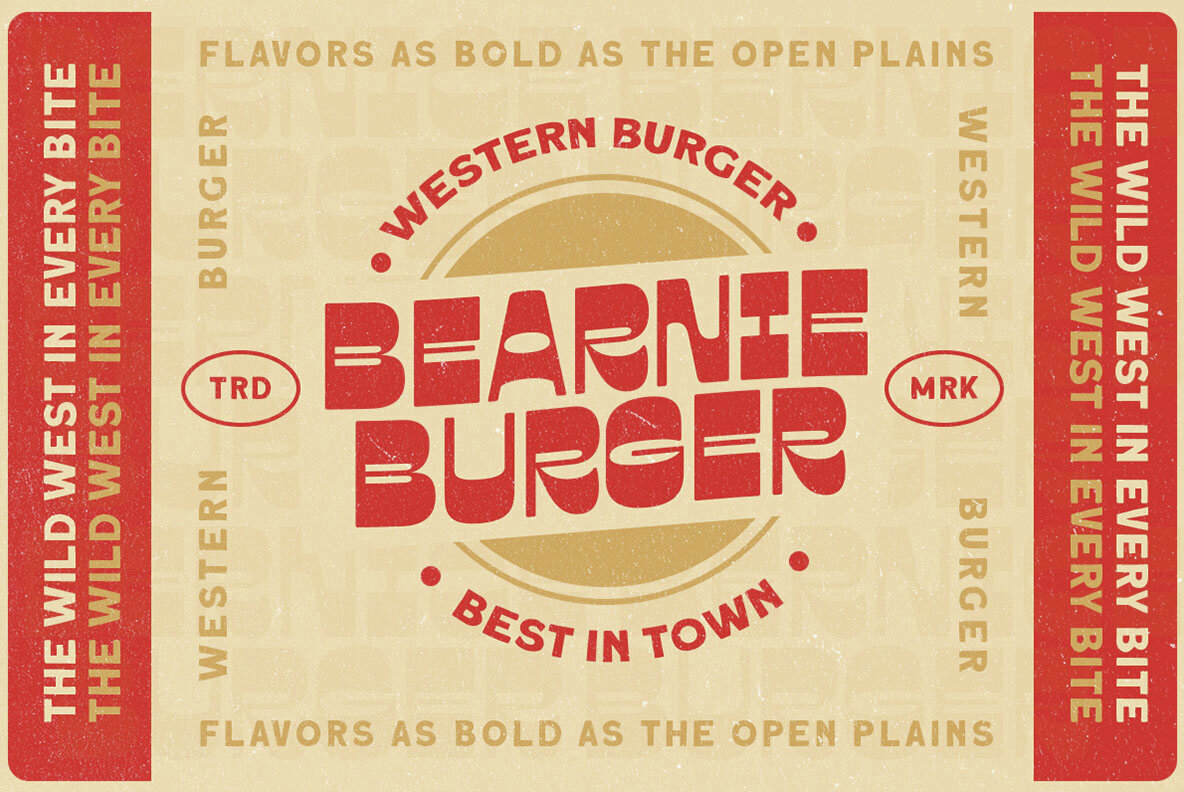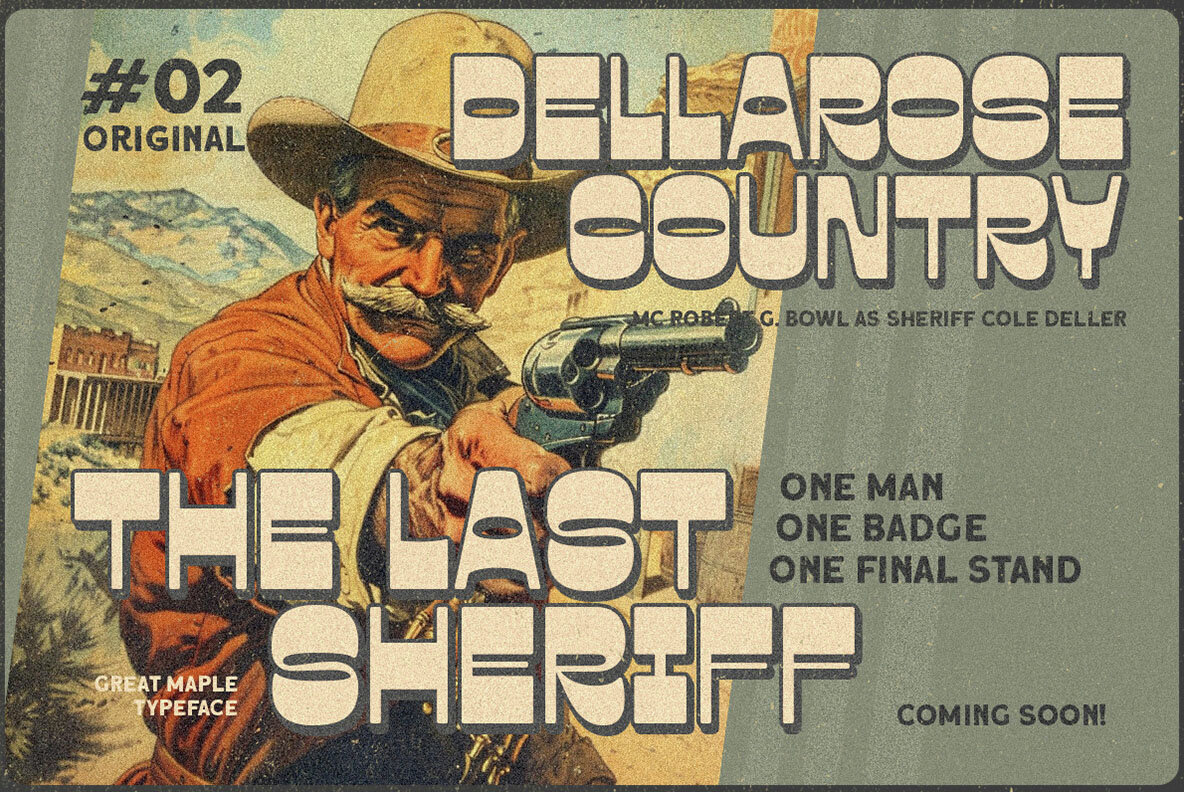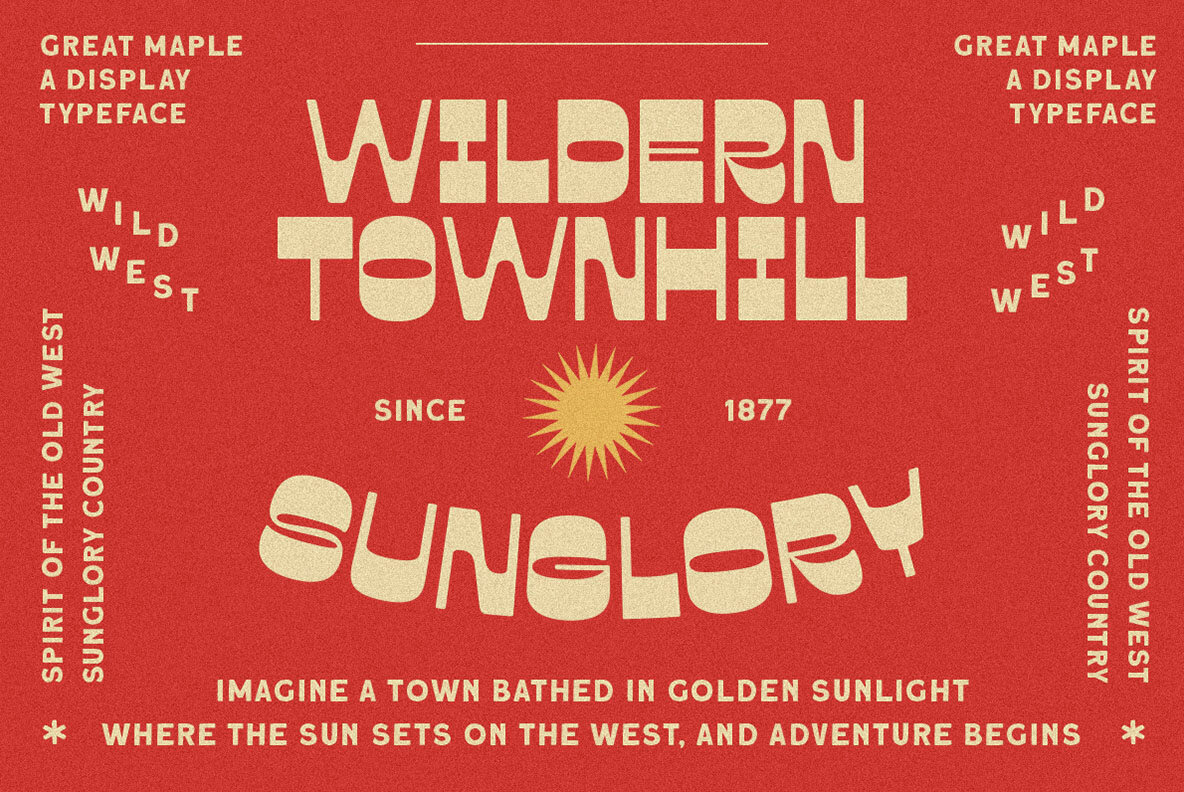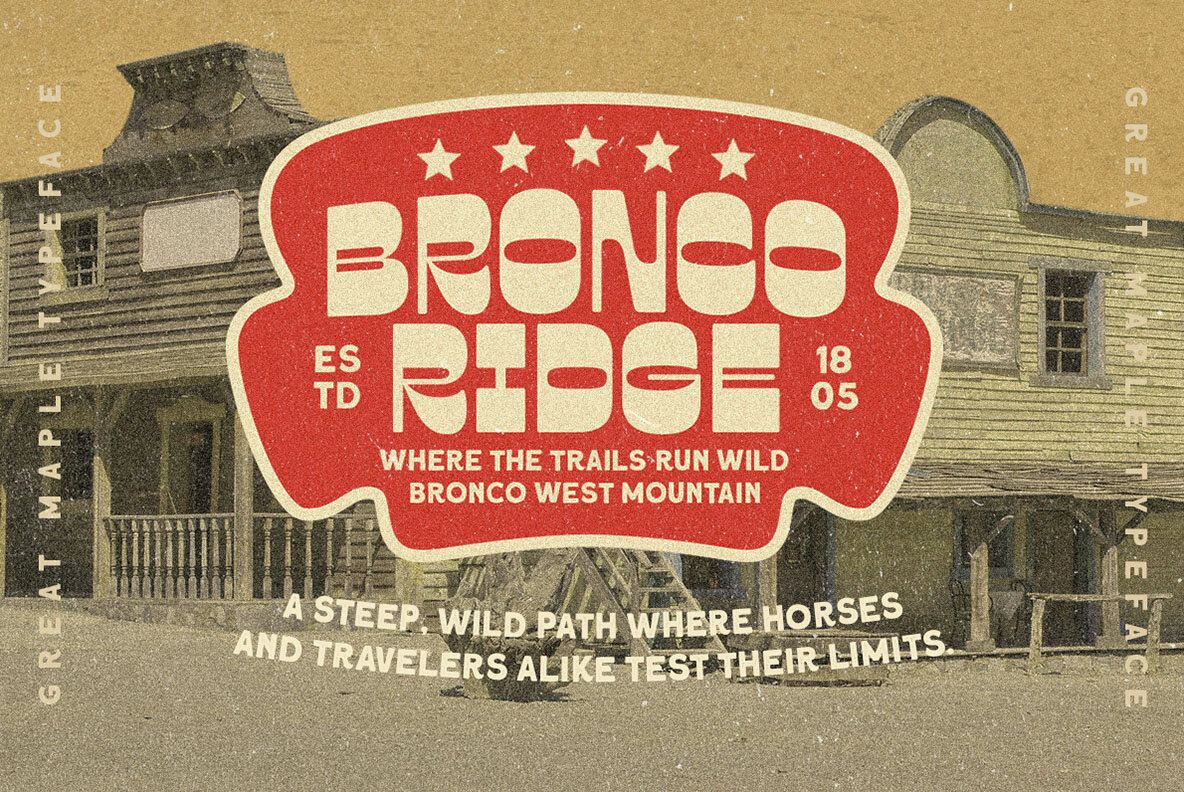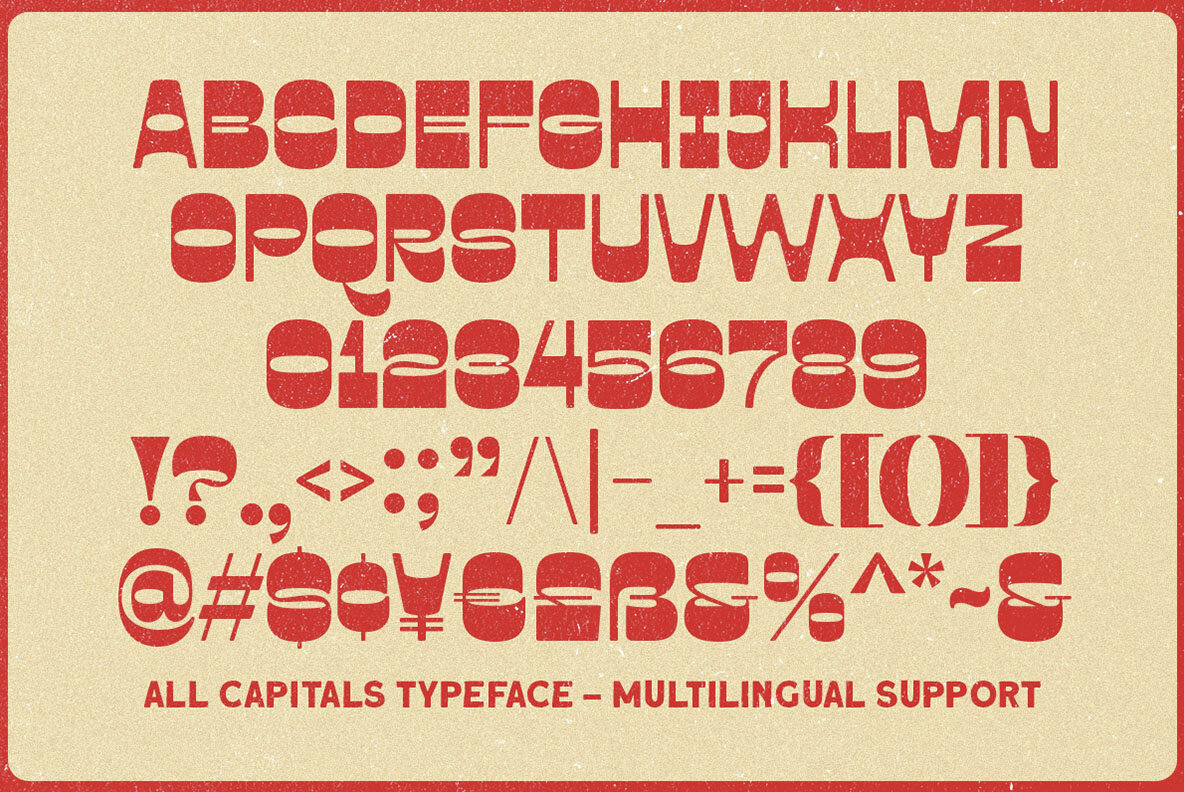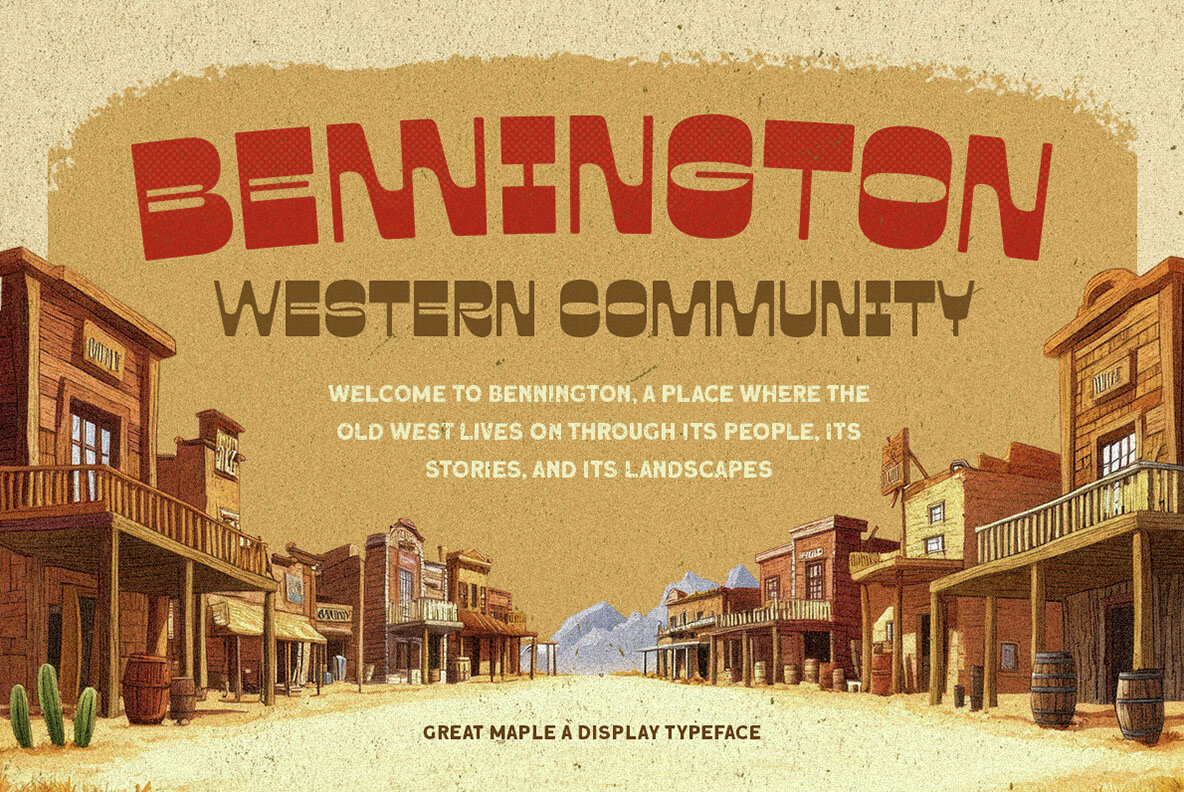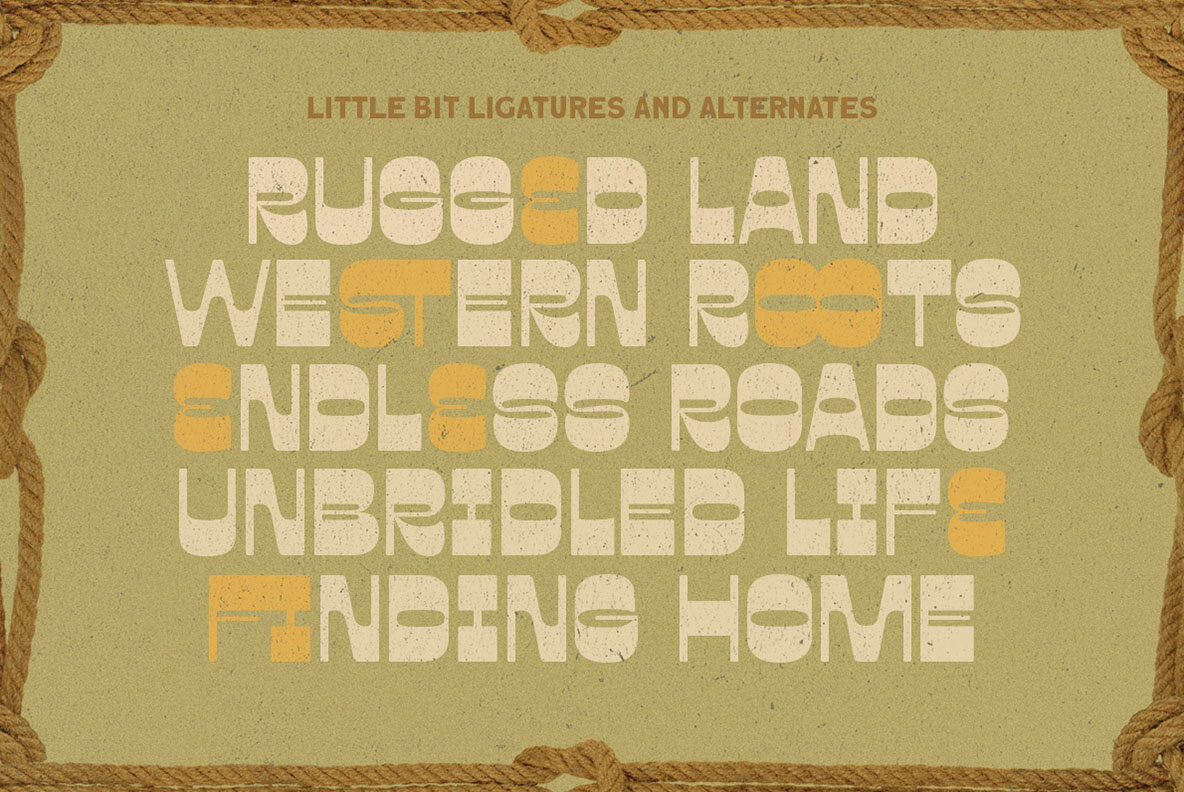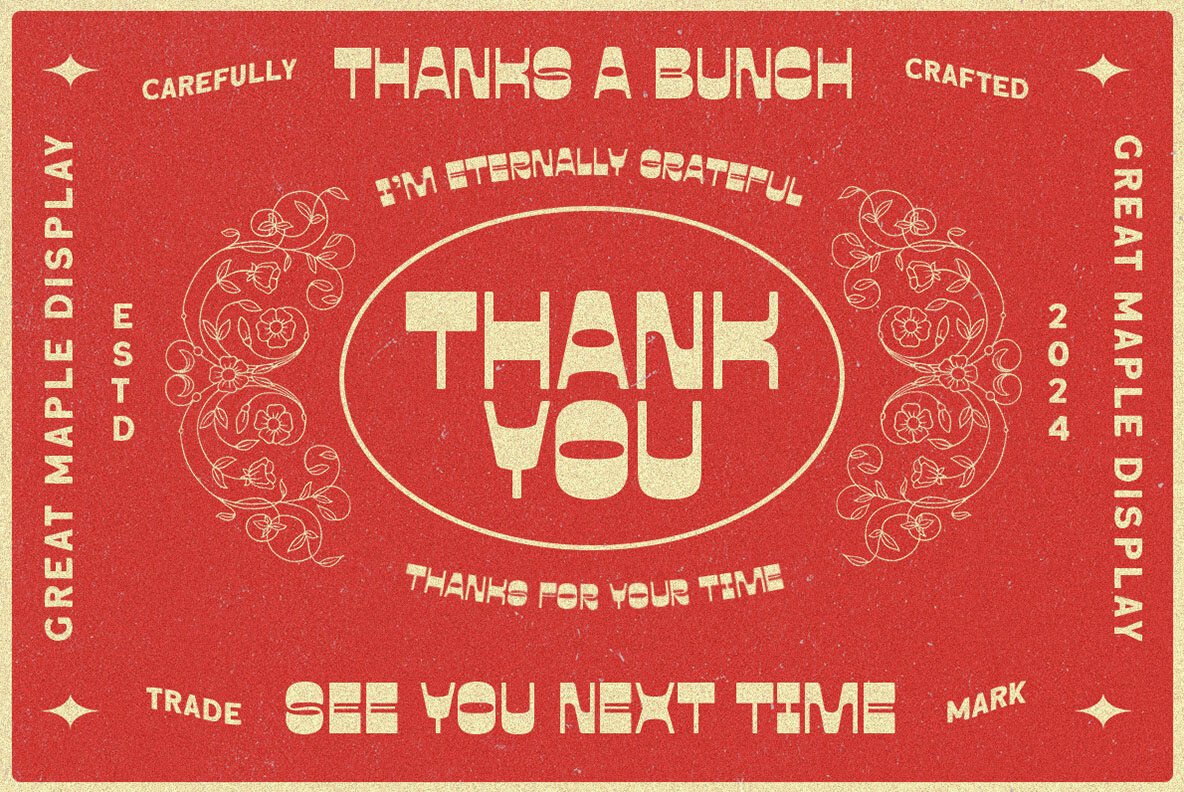
Great Maple is a bold and playful display typeface crafted entirely in uppercase letters. It carries a rustic and vintage aesthetic, evoking a Western-inspired vibe that works beautifully for designs with a retro or handcrafted theme. The uneven texture and slightly distressed look give it an organic and authentic feel, perfect for projects that require a touch of nostalgia.